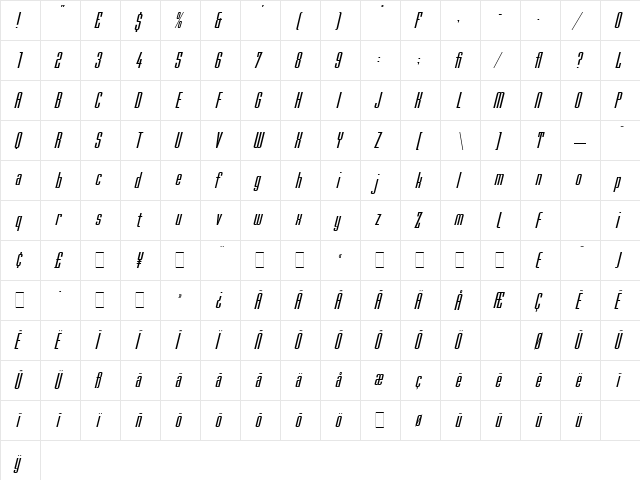
Mekanik Italic LET Plain
Design Context for Mekanik Italic LET Typeface
Mekanik Italic LET is a composed and adaptable typeface that performs quietly and consistently across a wide range of design contexts. The slanted form adds forward momentum and visual energy.